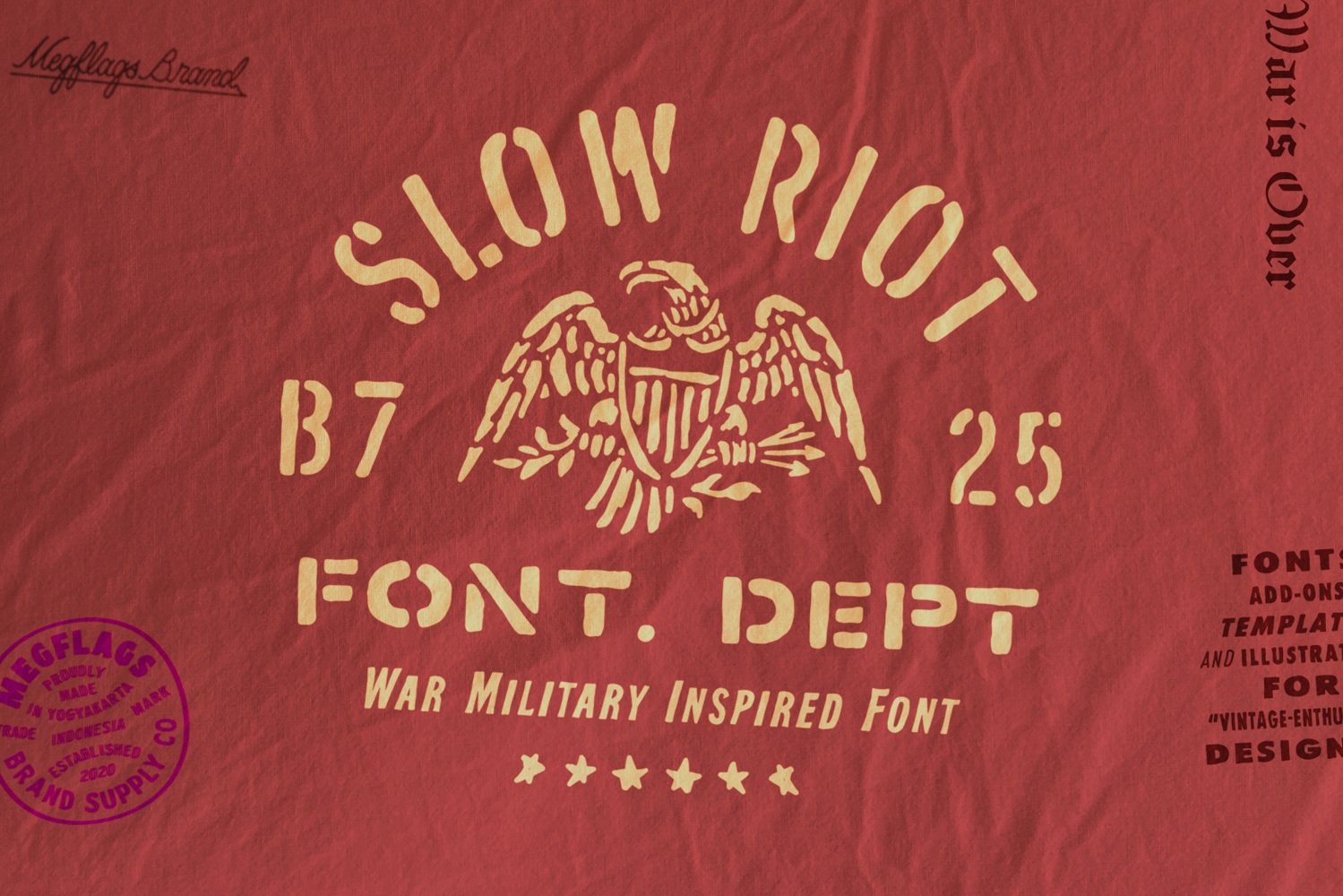
Slow Riot
A vintage military typeface for people who like their rebellion well-organized. Inspired by wartime manuals, stenciled crates, and “do not ask questions” typography.
Built with 3 styles (because even the army needs options.) • Regular – clean, obedient, follows orders • Bold – seen some things, slightly traumatized • Italic – hit once, approved forever
Perfect for posters, labels, branding, and anti-war statements disguised as design.
War is over. Not again anymore. Peace.